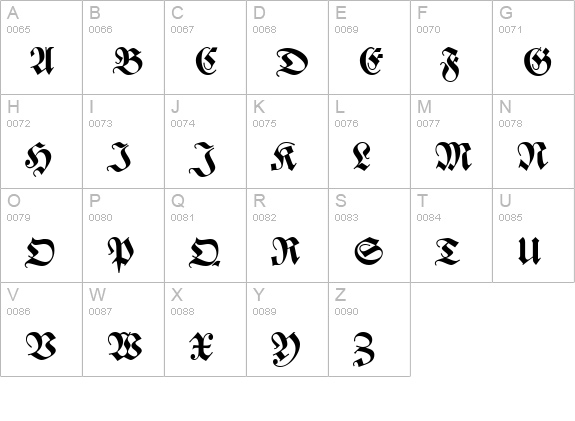
Z690-Blackletter-Bold Font Details
Z690-Blackletter-Bold is a strong, high-contrast variant in the Z690 typeface family \xE2\x80\x94 well suited to headlines, attention-grabbing titles, and strong calls-to-action.
Z690-Blackletter-Bold is a striking and bold font that exudes a sense of sophistication and elegance. This font is perfect for adding a touch of old-world charm and uniqueness to your designs. The intricate details and sharp edges of the blackletter style give Z690-Blackletter-Bold a timeless and classic appeal. The powerful presence of this font makes it ideal for headlines, titles, logos, and other prominent design elements that need to make a statement. Its bold and distinctive look commands attention and adds a touch of drama to any project. Best of all, Z690-Blackletter-Bold is available for free download at FontsMarket.com, making it easily accessible for designers and creatives looking to elevate their work with a touch of vintage flair. Don't miss out on the opportunity to add this stunning font to your collection and bring a touch of bold sophistication to your designs.